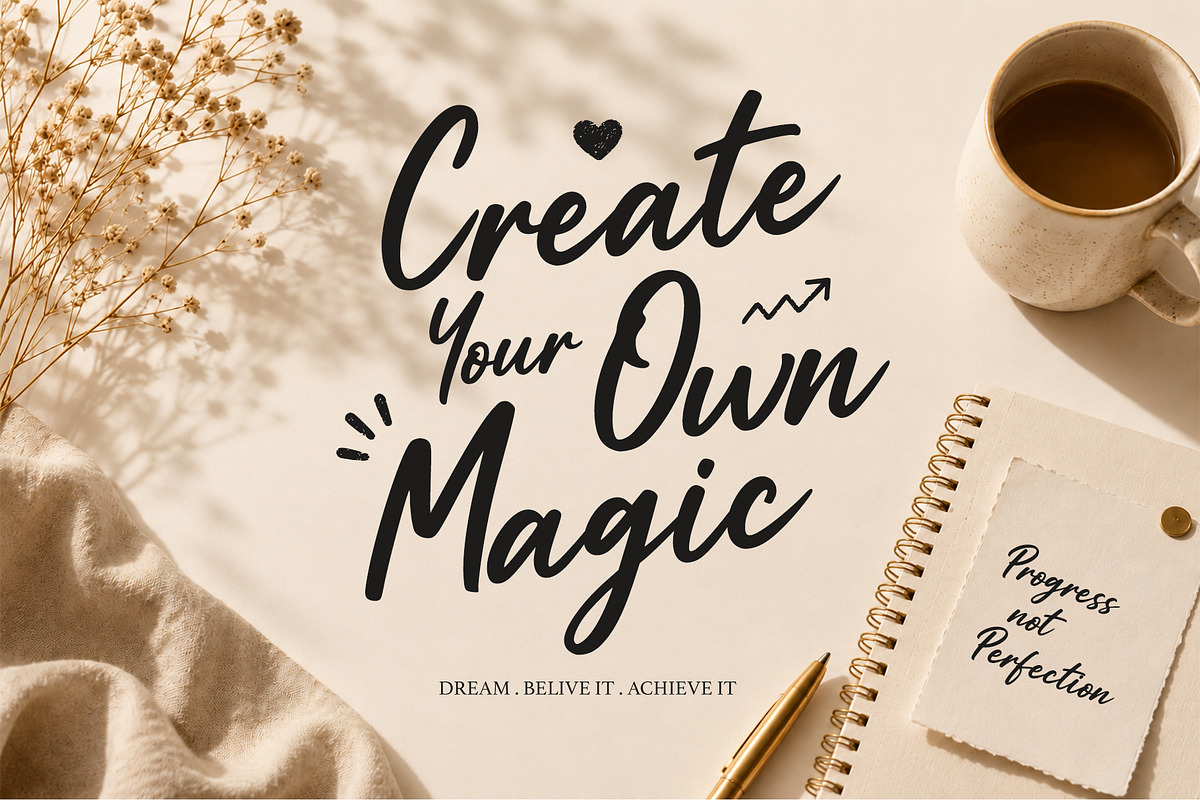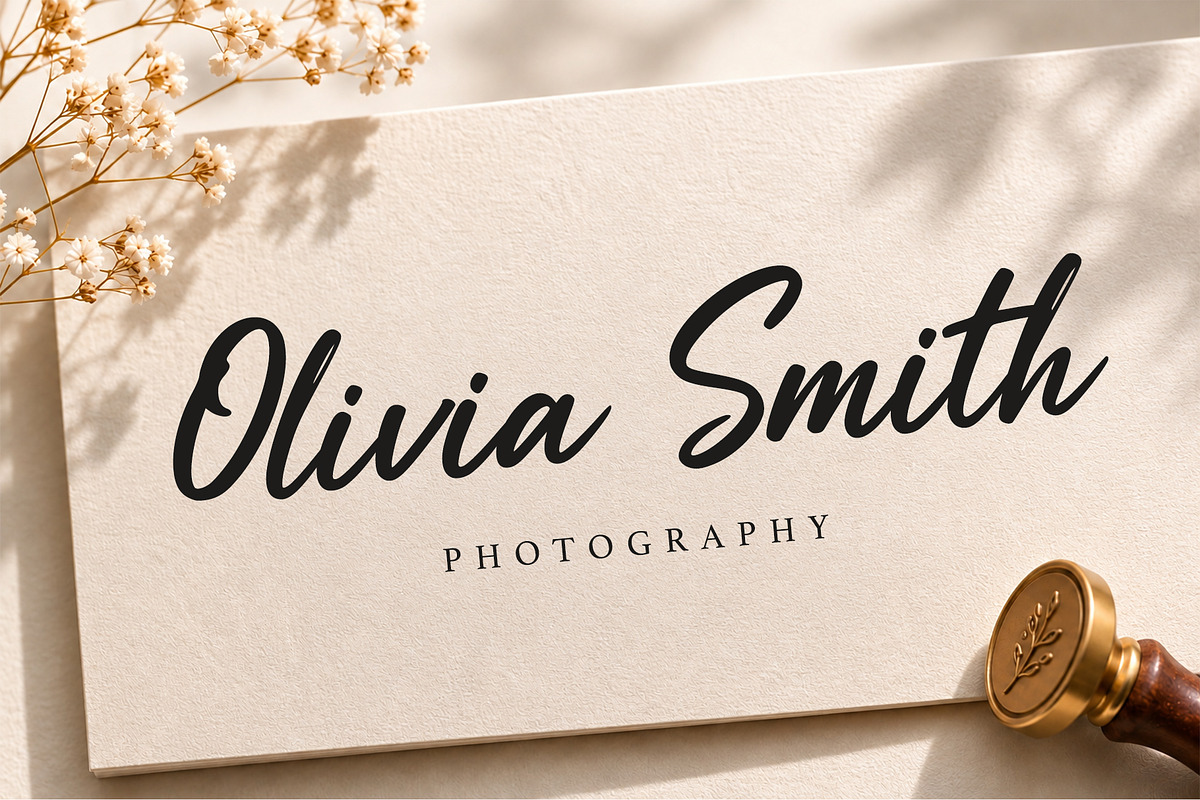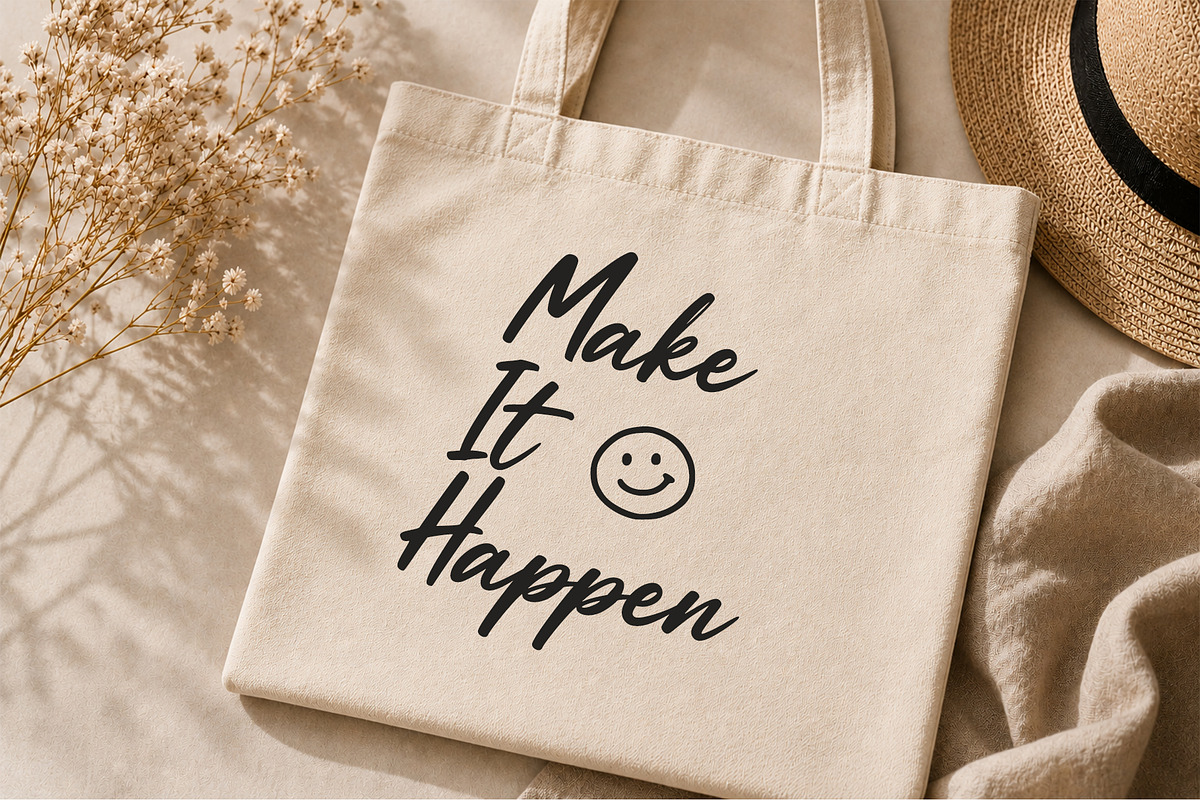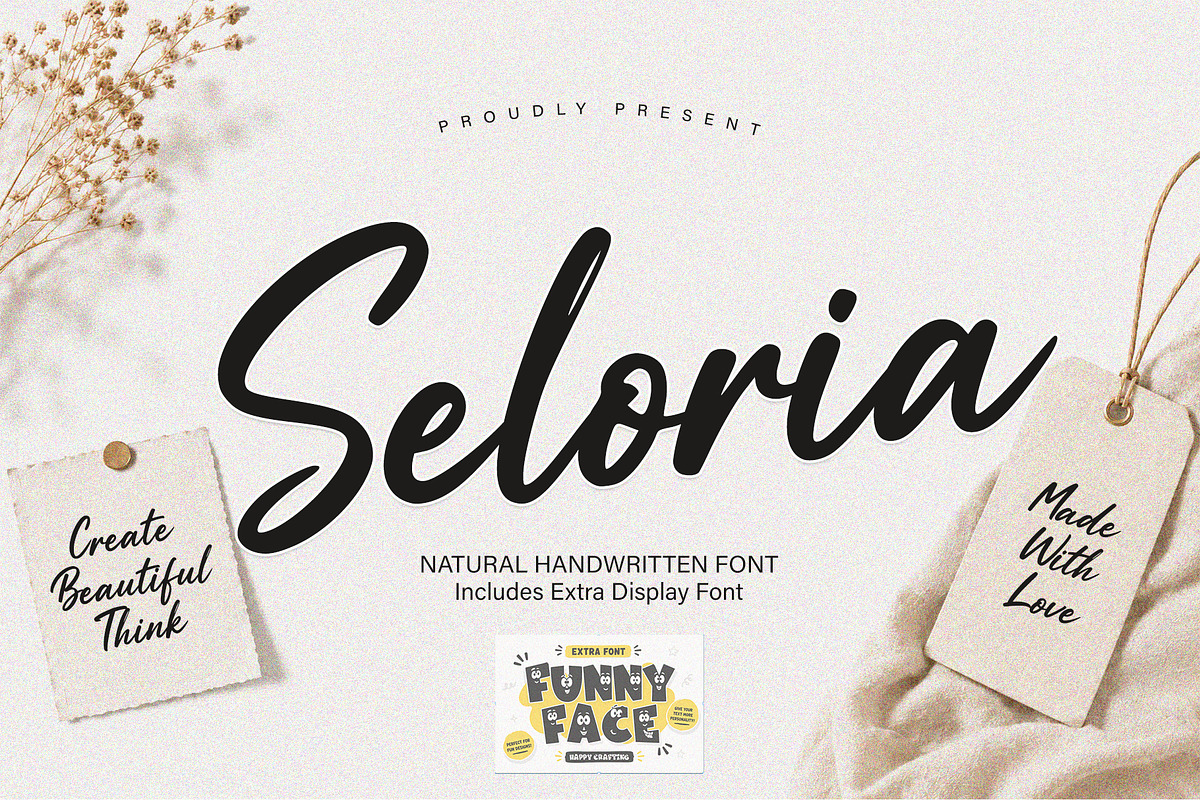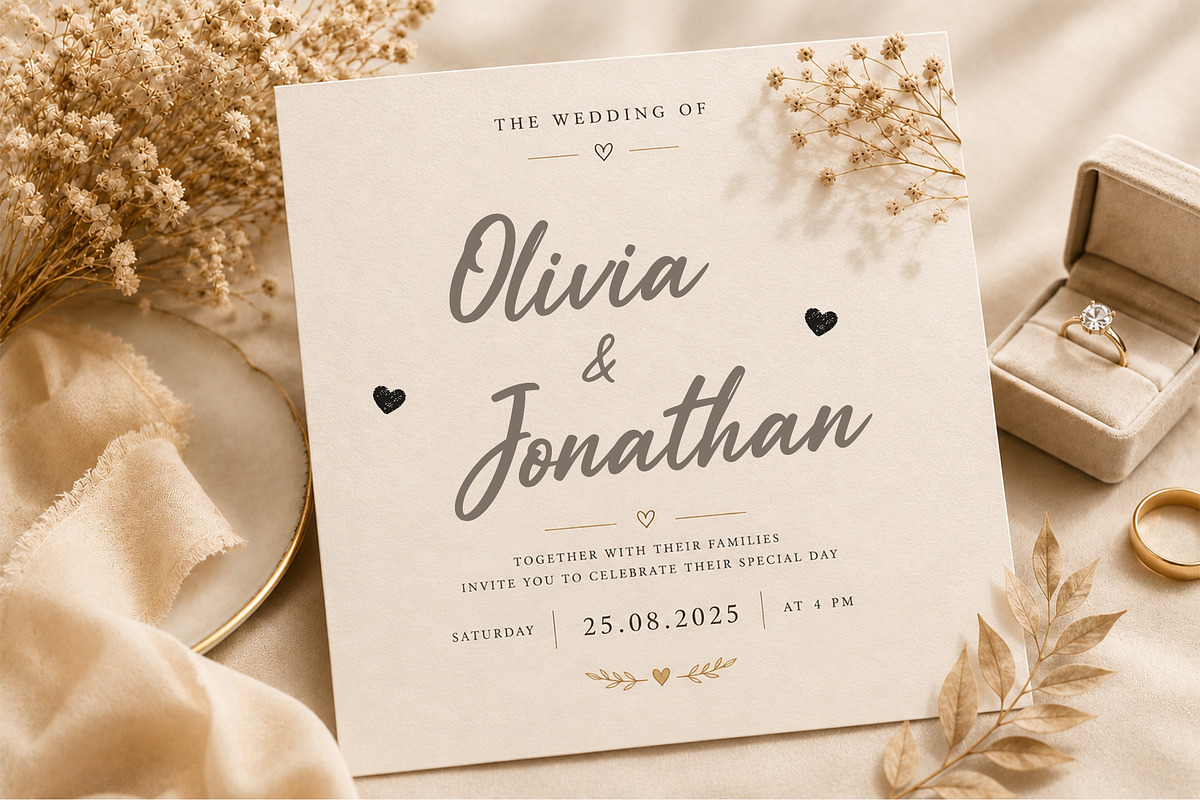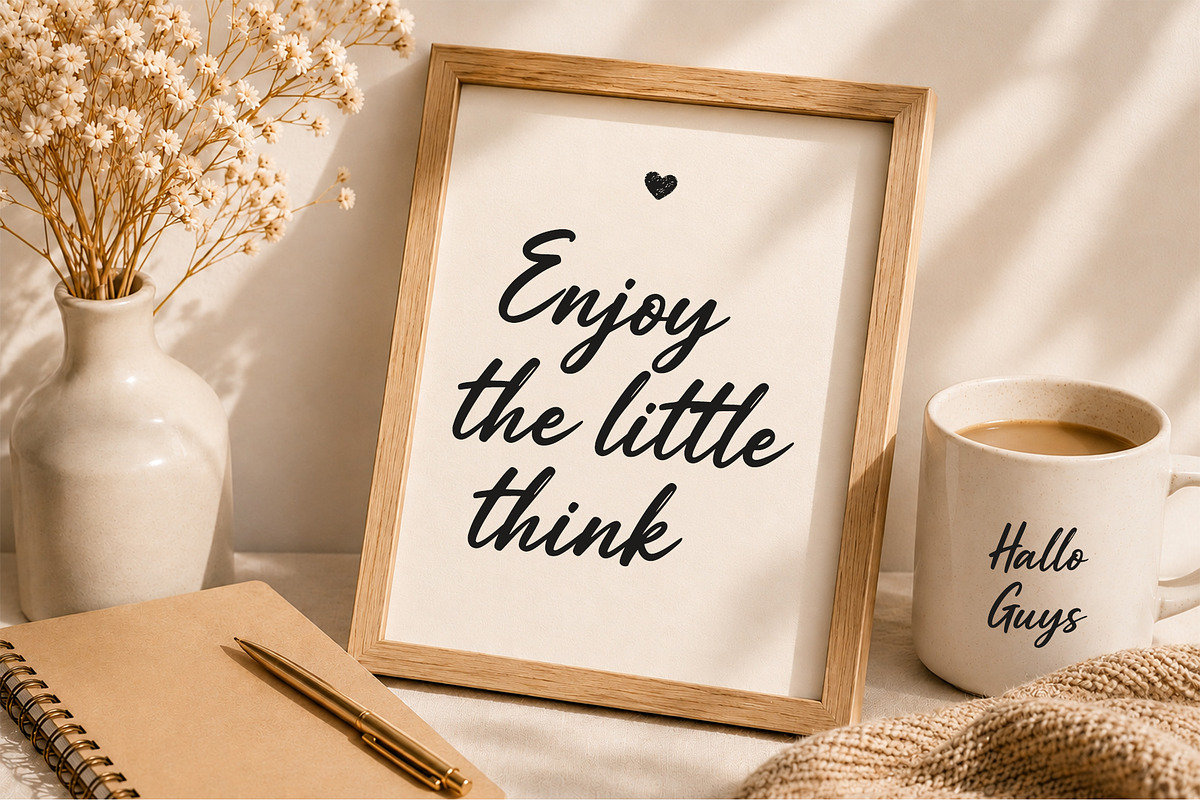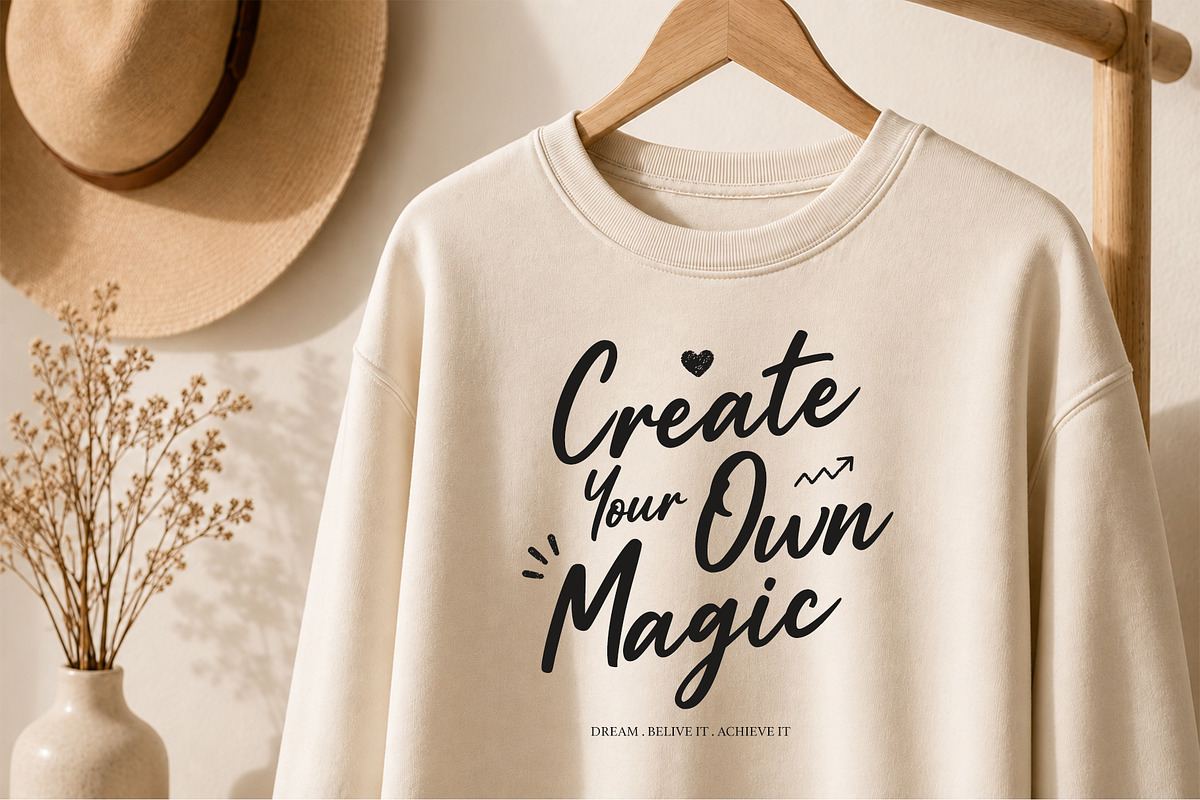
Seloria with extra
Seloria – Natural Handwritten Script Font
Seloria is a natural handwritten script font with smooth curves, clean strokes, and an effortless flow. Designed to create an authentic handwritten appearance, it combines elegance and readability, making it suitable for a wide range of creative applications.
This package also includes a bonus display font, providing additional flexibility for creating eye-catching headlines, branding, and playful typography combinations.